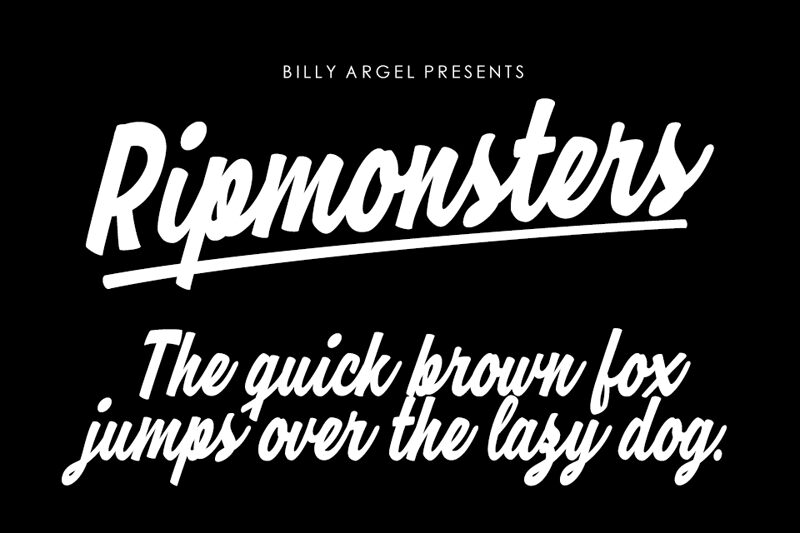
Ripmonsters, designed by Billy Argel, embodies the charm of handwritten artistry with its condensed style that captivates at first glance. The elegant sweeps and curves convey a personal touch, infusing projects with warmth and character unique to handcrafted aesthetics. The font's narrow width suggests efficiency and a modern twist, making it an excellent choice for designers seeking to combine intimacy with contemporary flair.
Ideal for branding, invitations, or any project requiring a touch of the bespoke, Ripmonsters' distinctive style stands out. Its versatility lends itself beautifully to creative endeavors where a sense of individuality is paramount. Whether it's the focal point of your design or an accentuating element, Ripmonsters is poised to leave a memorable impression due to its stylized yet readable appearance.